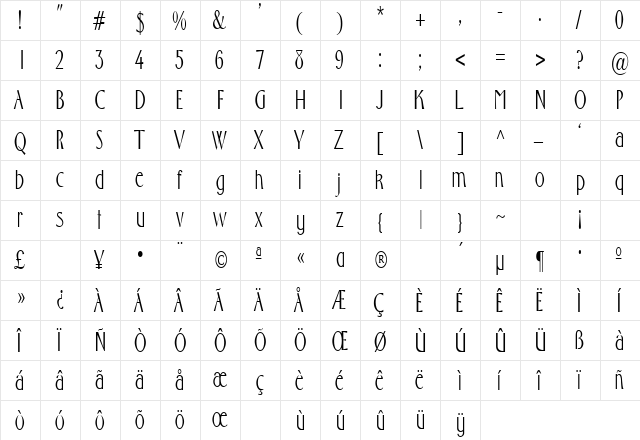
GabrielCondensed Regular
Design Context for GabrielCondensed Typeface
GabrielCondensed takes a measured approach to typography — its balanced proportions and neutral character make it a reliable workhorse for both digital and print work. The condensed width makes it efficient for tight spaces without sacrificing legibility.